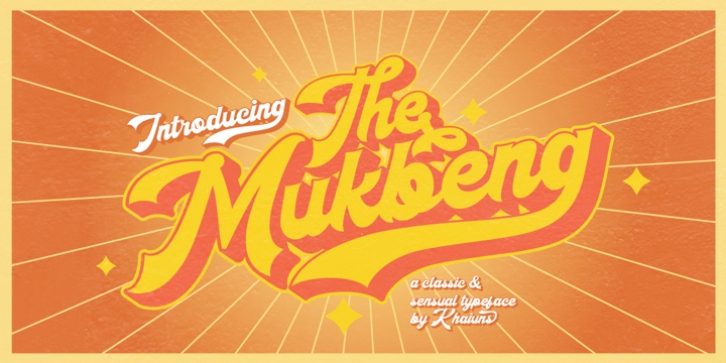
Mukbeng Script is a bold script layered with outlines and extrusions, Mukbeng is very inspired by the famous retro typographical design of the late 60s to 70s. Made in combination with hand letters, it comes with dramatic movements and it's great for subsequent creative projects that require a retro vibe or a modern twist.
Features include: Alternative Styles, Swashes, Ligatures, Contextual and Style Sets. You can choose an alternative to substitution, Mukbeng has many variants per letter.
· Mukbeng Script
· Mukbeng Extrude
· Mukbeng Outline